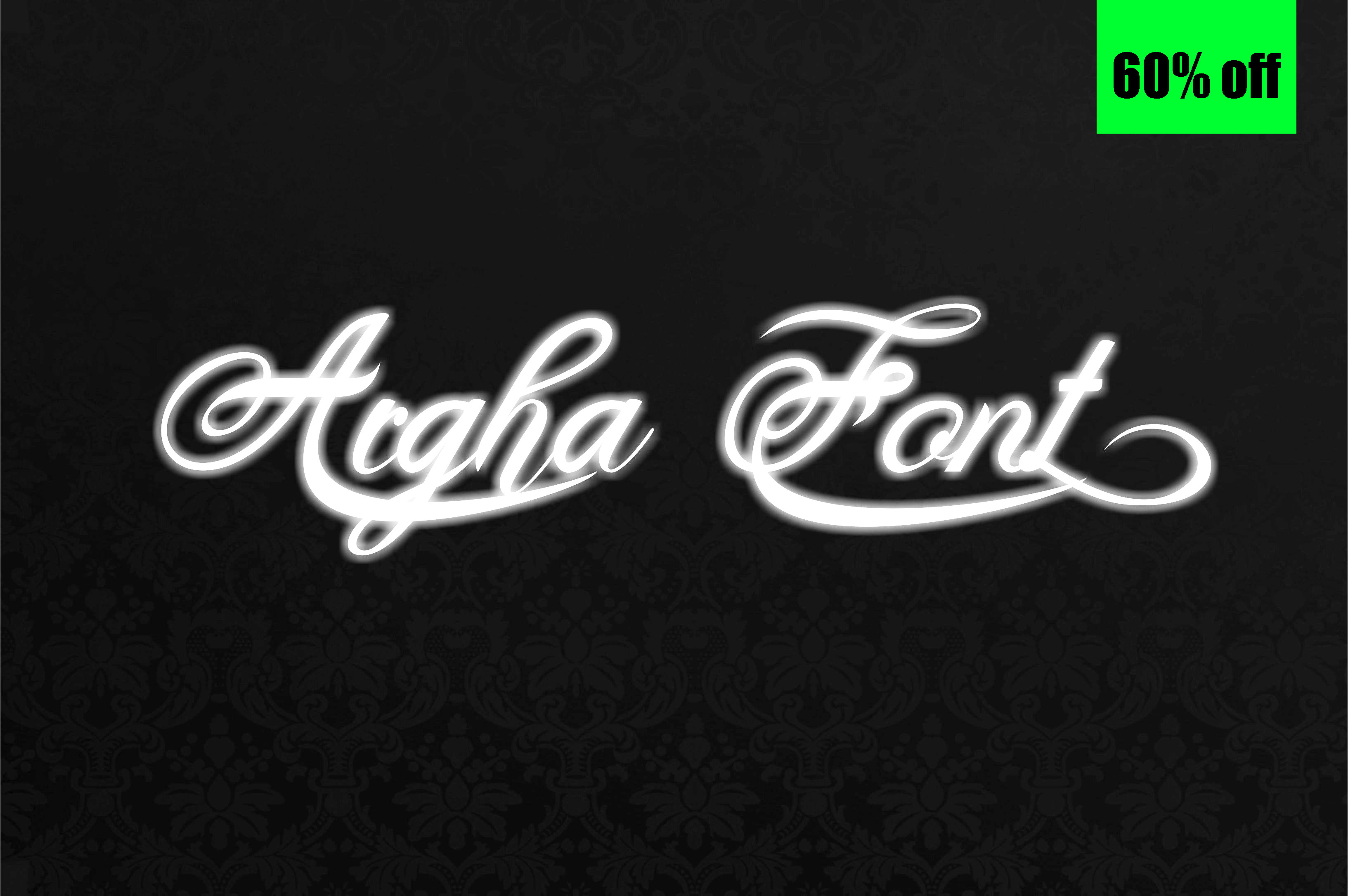
Argha Font
You can use it for invitations, wedding, and to make beautiful words. Create your creation with Argha font, and you can be a designer to mix and match the letter in accordance with your taste.